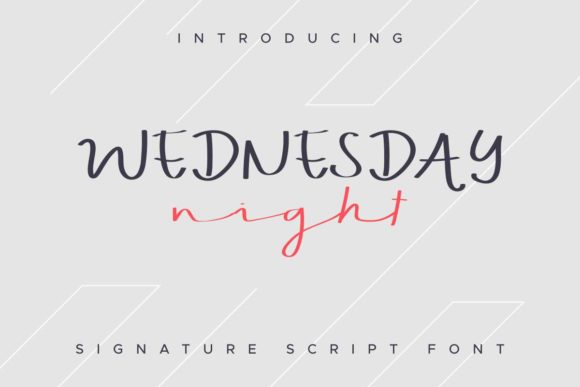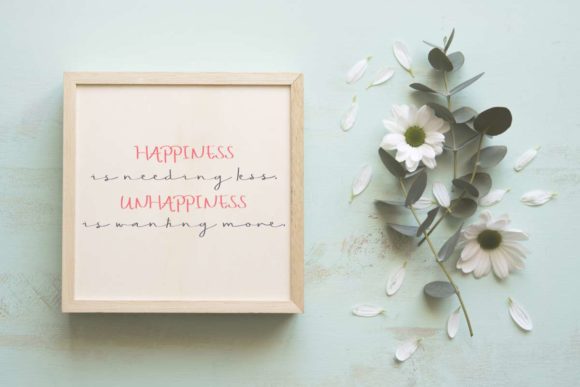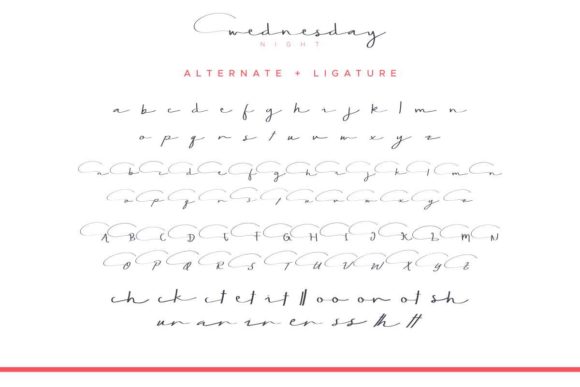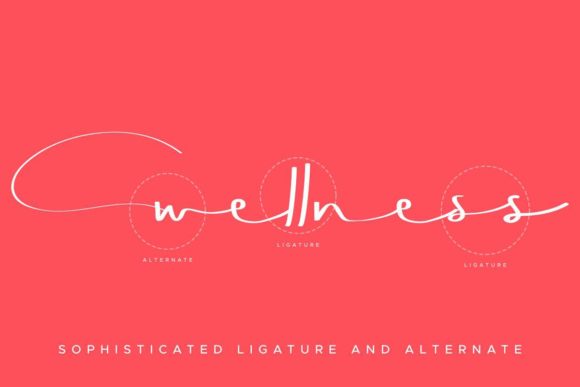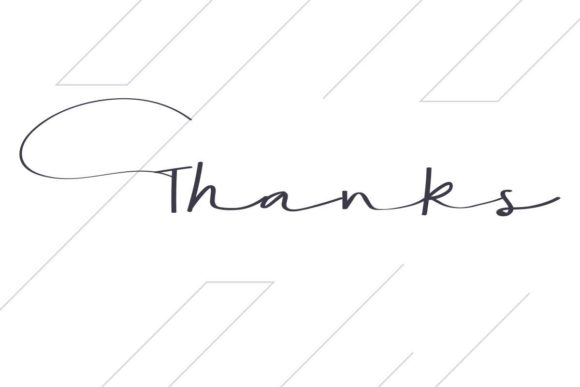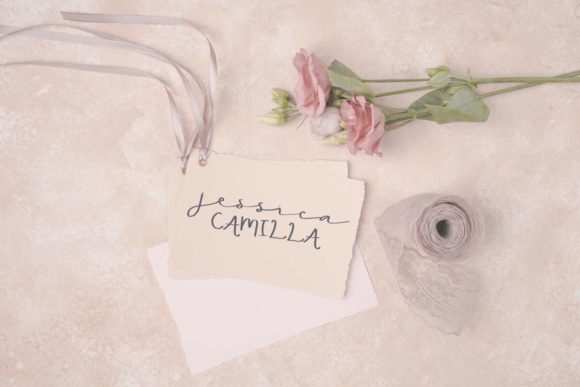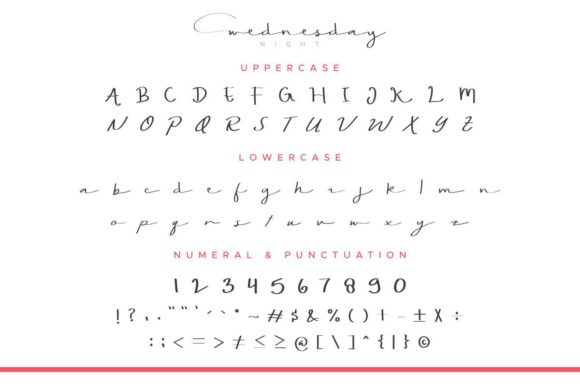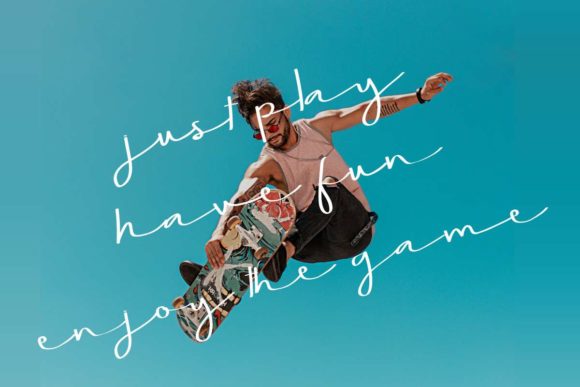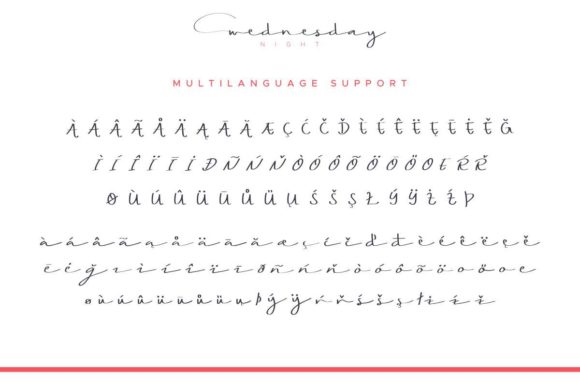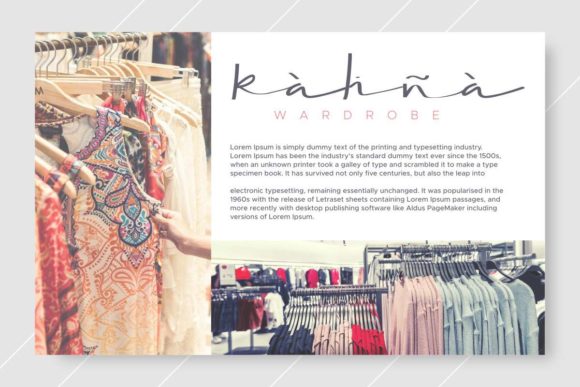
Wednesday Night Font
About Wednesday Night Font
Wednesday Night is a bold script, carefully handcrafted to become a true favorite. Its casual charm makes it appear wonderfully down-to-earth, readable and, ultimately, incredibly versatile. Wednesday Night will look outstanding in any context, whether it’s being used on busy backgrounds or as a standalone headline!